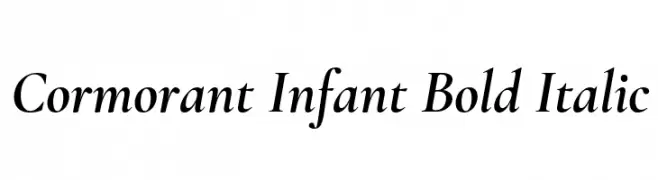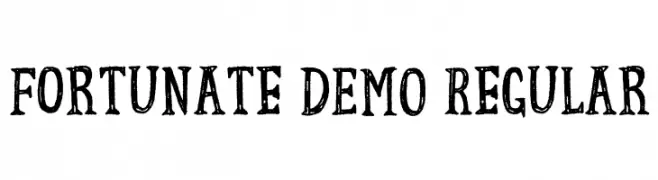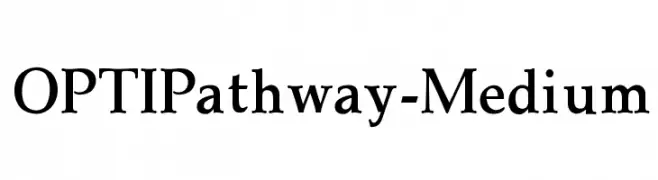
A bold, distressed font with a rugged, textured appearance.
A classic serif font with medium weight and pronounced serifs for a traditional look.
A bold, textured font with a rustic, hand-drawn appearance.
A bold, distressed font with a vintage, rugged appearance.
A bold, italic serif font with classic elegance and strong visibility.